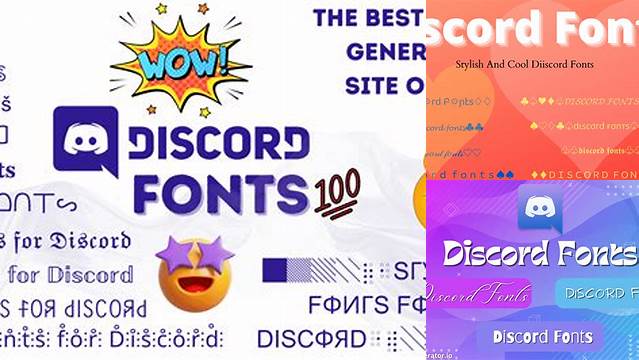
Cool Fonts For Discord: Chat In Style!
Hey guys! Ever feel like your Discord messages are looking a little...blah? Want to inject some personality and stand out from the crowd? Well, you've come to the right place! Discord, while awesome, has a pretty limited selection of built-in fonts. But don't worry, there are tons of cool fonts for Discord you can use to spice things up. We're going to dive deep into how to use these fonts, where to find them, and how to make your Discord experience way more visually engaging. Get ready to level up your chat game!
Why Use Cool Fonts on Discord?
Let's be real, communication is more than just the words we use. It's also about the tone, the style, and the overall vibe we convey. Using unique and stylish fonts on Discord can help you express yourself more effectively and add a personal touch to your messages. Think about it – a bold, italicized font can emphasize a point, a quirky font can add humor, and a sleek font can project professionalism. The possibilities are endless! More than just aesthetics, using different fonts can help to organize your messages, highlight important information, and make your text more readable. Imagine using a specific font for headings, another for body text, and yet another for quotes – it instantly creates a visual hierarchy that makes your messages easier to digest. So, choosing the right font really improves the readability and the overall experience for everyone in your server. If you’re trying to build a community on Discord, using cool fonts can also help to establish a unique brand identity. A consistent font style across your server’s channels and announcements can create a cohesive and professional look. This can make your server more memorable and help it stand out from the thousands of others out there. Fonts can be a powerful branding tool, so don't underestimate their importance. Using a new font can help you inject your personality into your messages, making them more engaging and memorable. Whether you’re a gamer, an artist, or just someone who loves to chat, expressing yourself through fonts can add a fun and creative element to your Discord interactions. Think of it as adding a visual flair to your conversations, allowing you to express yourself in ways that plain text simply can't. Ultimately, choosing a cool font makes Discord more fun! It’s a small change that can have a big impact, making your chats more visually appealing and engaging. Who doesn't love a little extra flair in their digital life? So, why settle for the default when you can transform your Discord experience with just a few simple font tweaks? Let’s explore how to do just that!
How to Use Cool Fonts on Discord
Okay, so you're sold on the idea of cool Discord fonts, but how do you actually use them? Sadly, Discord doesn't offer a built-in font selection menu like your favorite word processor. Instead, we need to get a little creative using Unicode text converters. Don't worry, it's not as technical as it sounds! These converters are super easy to use and allow you to generate text in a variety of stylish fonts that you can then copy and paste into Discord. Think of it as a font translator – you type in regular text, and it spits out the same text in a fancy font. Many websites offer these Unicode text converters for free. Just do a quick search for “Discord font generator” or “Unicode text converter,” and you'll find plenty of options. These sites typically have a simple interface: a text box where you type your message, and a list of font styles below. As you type, the text in the font options will update in real-time, allowing you to preview how your message will look in different fonts. Once you find a font you like, simply copy the generated text and paste it into your Discord chat. It’s that easy! Most of these converters use Unicode characters to create the different font styles. Unicode is a universal character encoding standard that includes a vast range of characters, including those that resemble different fonts. This means that the special fonts you generate using these converters are actually just combinations of Unicode characters that mimic the look of a font. This is why you can copy and paste them into Discord without any issues – Discord supports Unicode characters. Now, while these converters are incredibly convenient, there are a few things to keep in mind. Firstly, not all fonts are created equal. Some font styles may be more readable than others, especially in smaller sizes or on different devices. It’s always a good idea to preview your message before sending it to make sure it looks clear and legible. Secondly, overusing fancy fonts can actually detract from your message. Imagine an entire paragraph written in a super ornate font – it might look cool at first glance, but it could quickly become tiring to read. The key is to use fonts strategically – for headings, to emphasize key points, or to add a touch of personality – but not to overwhelm your message. Experiment with different fonts and find what works best for you and your server's aesthetic. Remember, the goal is to enhance your communication, not to make it harder to read. Finally, it's worth noting that while the fonts generated by these converters will display correctly on most devices, there's always a chance that some users might not see them as intended. This is because the appearance of Unicode characters can vary slightly depending on the operating system and the fonts installed on the user's device. However, this is usually a minor issue, and the vast majority of users will be able to see your stylish fonts without any problems. So, go ahead and give it a try! Using Unicode text converters is a simple and effective way to add cool fonts to your Discord messages and make your chats more visually appealing.
Where to Find Cool Fonts for Discord
So, you know how to use cool fonts on Discord, but where do you actually find them? The good news is that the internet is brimming with font generators and Unicode text converters, offering a vast array of styles to choose from. Let's explore some popular options and resources for finding the perfect fonts to spice up your Discord chats. As mentioned earlier, a simple search for “Discord font generator” or “Unicode text converter” will yield a plethora of websites. Many of these sites offer similar functionality, but some have unique features or a wider selection of fonts. It's worth exploring a few different options to find one that you like and that suits your needs. Some popular websites include LingoJam, YayText, and Text Generator. These sites are generally user-friendly, with a simple text box for input and a list of font styles that update in real-time. You can easily preview your message in different fonts and copy the generated text with a single click. One thing to consider when choosing a font generator is the range of font styles available. Some sites may focus on specific styles, such as cursive or gothic, while others offer a more diverse selection. If you're looking for a particular font style or want to experiment with a variety of options, it's worth checking out a few different generators. Another factor to consider is the ease of use of the website. A clean and intuitive interface can make the process of generating cool fonts much smoother and more enjoyable. Look for sites that are easy to navigate and that provide clear instructions on how to use the converter. Many font generators also offer additional features, such as the ability to create custom symbols or add decorative elements to your text. These features can be a fun way to add even more flair to your Discord messages. For example, some sites allow you to create text art or add emojis to your generated text. Beyond websites, there are also apps and browser extensions that can help you generate cool fonts for Discord. These tools can be particularly convenient if you use Discord frequently, as they allow you to generate fonts directly from your browser or device without having to visit a website. Some browser extensions, for instance, can add a font generator directly to your Discord interface, making it even easier to use different fonts in your chats. Keep in mind that while there are many free resources for finding cool fonts for Discord, some websites or apps may offer premium features or subscriptions. These premium options might include access to a wider selection of fonts, advanced customization options, or an ad-free experience. However, for most users, the free options will provide plenty of choices and functionality. Ultimately, the best way to find cool fonts for Discord is to experiment and explore. Try out a few different font generators, browse the available styles, and see what resonates with you. Don't be afraid to get creative and try out fonts that are a little outside your comfort zone. You might be surprised at what you discover!
Tips for Using Fonts Effectively on Discord
Okay, so you've got your arsenal of cool fonts ready to go. But like any tool, it's all about how you use them! Slapping a crazy font on every single message might not be the best strategy. Let's talk about some tips and tricks for using fonts effectively on Discord to make your messages pop without becoming a visual mess. First and foremost, consider readability. A super stylish font might look amazing, but if it's difficult to read, it's defeating the purpose of your message. Choose fonts that are clear and legible, especially for longer messages or important announcements. Think about it – if people have to strain their eyes to read your text, they're less likely to engage with it. Save the more ornate or decorative fonts for headings, highlights, or short bursts of emphasis. Use different fonts strategically to highlight important information. For example, you could use a bold font for headings, an italic font for quotes, and a different font altogether for code snippets. This creates a visual hierarchy that makes your messages easier to scan and understand. Think of it like visual cues that guide the reader's eye and help them grasp the key takeaways. Consistency is key when it comes to branding, even in your Discord server! If you're using cool fonts to establish a unique identity for your server, stick to a consistent style across your channels and announcements. This will create a cohesive and professional look that reinforces your brand. Imagine if a company used a different logo and color scheme every time they communicated – it would be confusing and undermine their brand. The same principle applies to fonts on Discord. Don't go overboard with the font variety. Using too many different fonts in a single message or conversation can be overwhelming and distracting. Stick to a maximum of two or three different fonts to maintain a clean and cohesive look. It's like adding spices to a dish – a little can enhance the flavor, but too much can ruin it. Context matters! The font you choose should be appropriate for the context of your message. A playful font might be perfect for a casual chat with friends, but it might not be the best choice for a serious announcement or a professional discussion. Think about the tone and purpose of your message and choose a font that aligns with it. Before sending a message with a new font, take a moment to preview it to make sure it looks as intended. Different fonts can render differently on different devices or platforms, so it's always a good idea to double-check. This will help you avoid any awkward surprises or misinterpretations. Remember the goal is to enhance communication, not to show off your fancy fonts. Fonts are a tool, and like any tool, they should be used to serve a purpose. Don't let the font overshadow the message itself. The most important thing is that your message is clear, concise, and easy to understand. Finally, consider your audience. What might be a cool font to you might not appeal to everyone. Think about the demographics of your server and choose fonts that are likely to resonate with your members. If you're unsure, it's always a good idea to ask for feedback or do a quick poll to gauge preferences. Using cool fonts on Discord is a fun way to express yourself and add personality to your messages, but it's important to use them thoughtfully and strategically. By following these tips, you can level up your chat game and create a more engaging and visually appealing Discord experience for yourself and your community.
So there you have it! A comprehensive guide to using cool fonts for Discord. We've covered why using different fonts can enhance your Discord experience, how to generate them using Unicode text converters, where to find a plethora of font styles, and pro tips for using them effectively. Now it’s your turn to get creative and start experimenting! Don't be afraid to try out different fonts, mix and match styles, and find what works best for you and your server. Remember, the goal is to express yourself, add personality to your messages, and make your Discord chats more engaging and visually appealing. But always keep readability in mind. A stylish font is only effective if it's easy to read and doesn't distract from your message. Use fonts strategically, highlighting important information and creating a visual hierarchy within your text. And don't forget to consider your audience and the context of your message when choosing a font. With a little practice and experimentation, you'll be a font master in no time, transforming your Discord chats into works of art! So, go forth and fontify your Discord experience! Have fun, be creative, and let your personality shine through your messages. Happy chatting, guys!